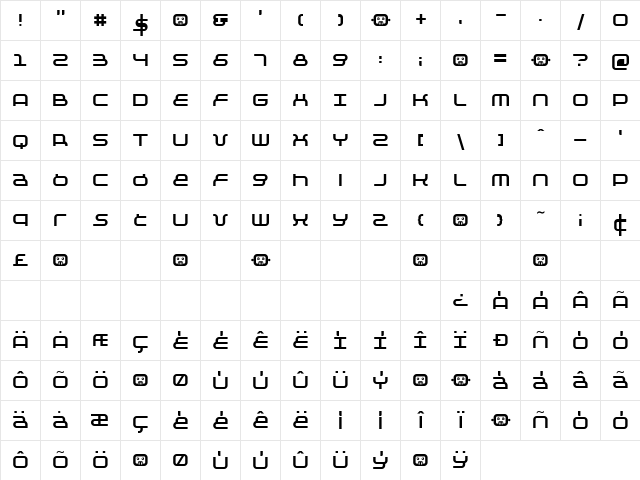
Negative 12 Regular Font Preview
Negative 12 Regular
Design Context for Negative 12 Typeface
Negative 12 is a composed and adaptable typeface that performs quietly and consistently across a wide range of design contexts.